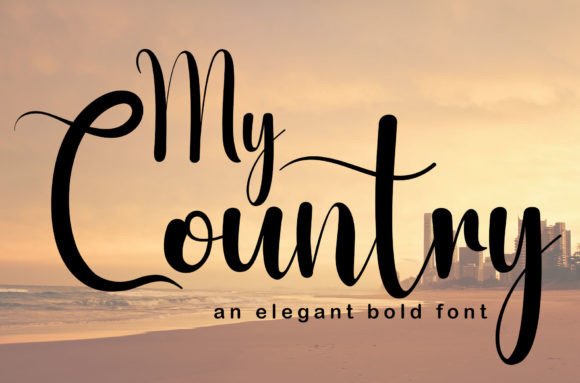
Embark on an enchanting journey into the realm of typography with My Country Font, a script font family that will captivate your imagination and elevate your creative projects to new heights. Crafted with meticulous attention to detail by the talented Sansana, My Country exudes an aura of elegance and sophistication that will leave an unforgettable impression on your audience.
Immerse yourself in the beauty of My Country's meticulously crafted letters, each one a testament to the art of impeccable penmanship. The font's graceful curves and delicate flourishes evoke a sense of timeless charm, reminiscent of handwritten love letters and vintage manuscripts. Whether you're designing an invitation for a special occasion, creating a heartfelt greeting card, or crafting a captivating logo, My Country will add a touch of refinement and sophistication that will set your work apart.
Unleash your creativity with My Country's versatile nature. Its adaptability shines in a multitude of contexts, from wedding stationery and brochures to social media graphics and branding materials. Its elegant script is perfect for adding a personal touch to your projects, evoking a sense of warmth and authenticity that will resonate with your audience.
With My Country as your font of choice, you'll find yourself immersed in a world of endless possibilities. Its timeless style lends itself effortlessly to both classic and contemporary designs, allowing you to create designs that transcend the boundaries of time. Embrace the beauty of My Country and watch as your creative vision takes flight.